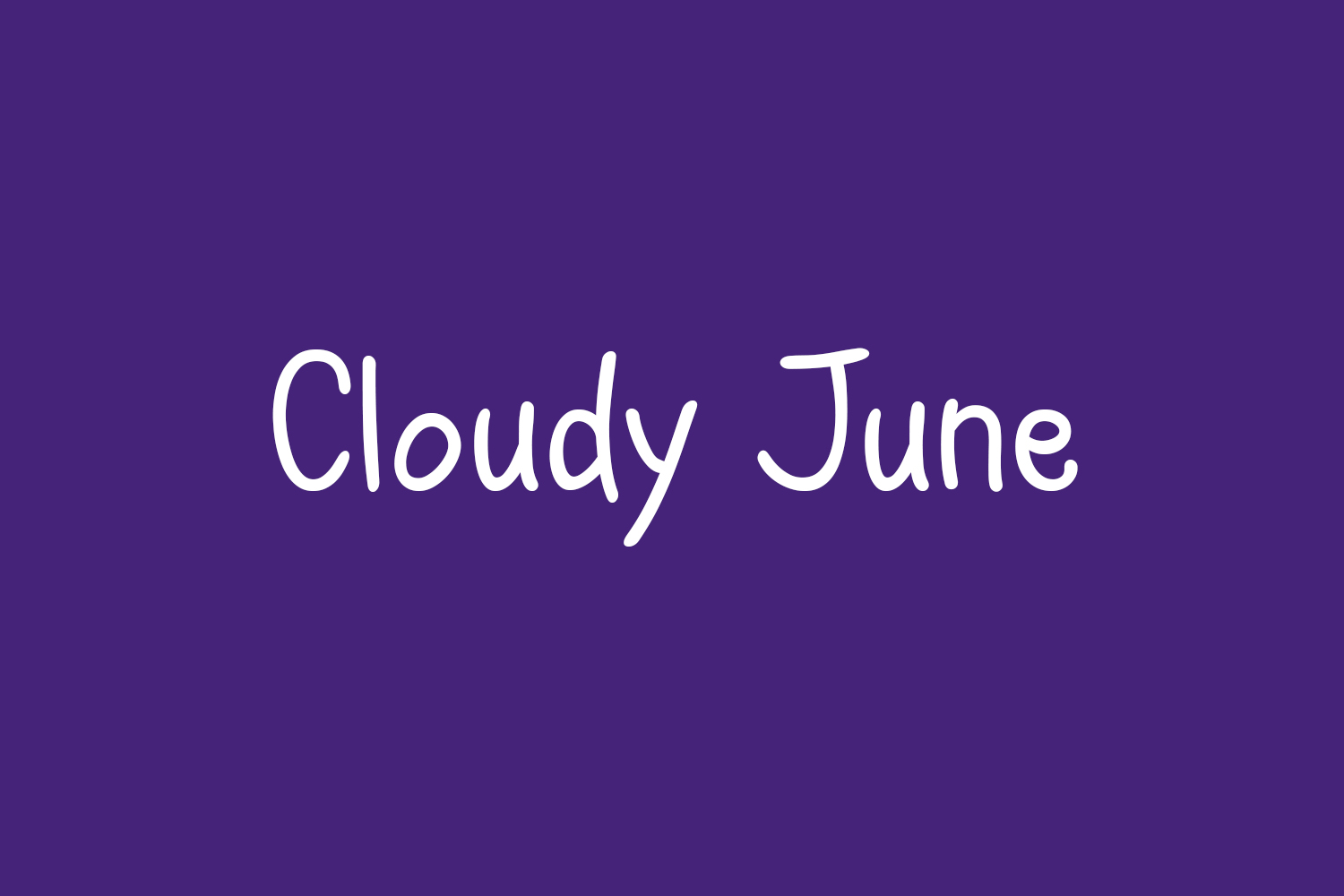
Introducing Cloudy June Free Font, an exquisite handcrafted font designed to infuse your designs with a personalized touch of beauty. Its graceful curves and flowing lines exude a delightful sense of whimsy and charm, breathing life into every project it graces.
Each letter is meticulously crafted to emulate the art of hand-drawn script, granting your work an unparalleled authenticity that resonates uniquely with your audience.
From invitations to social media graphics, Cloudy June effortlessly adapts to various contexts, ensuring your creations shine brightly and captivate the attention they deserve. Elevate your designs and make a lasting impression with this versatile and captivating font. Cloudy June Free Font is free for personal use only. Please purchase the full version for commercial use.